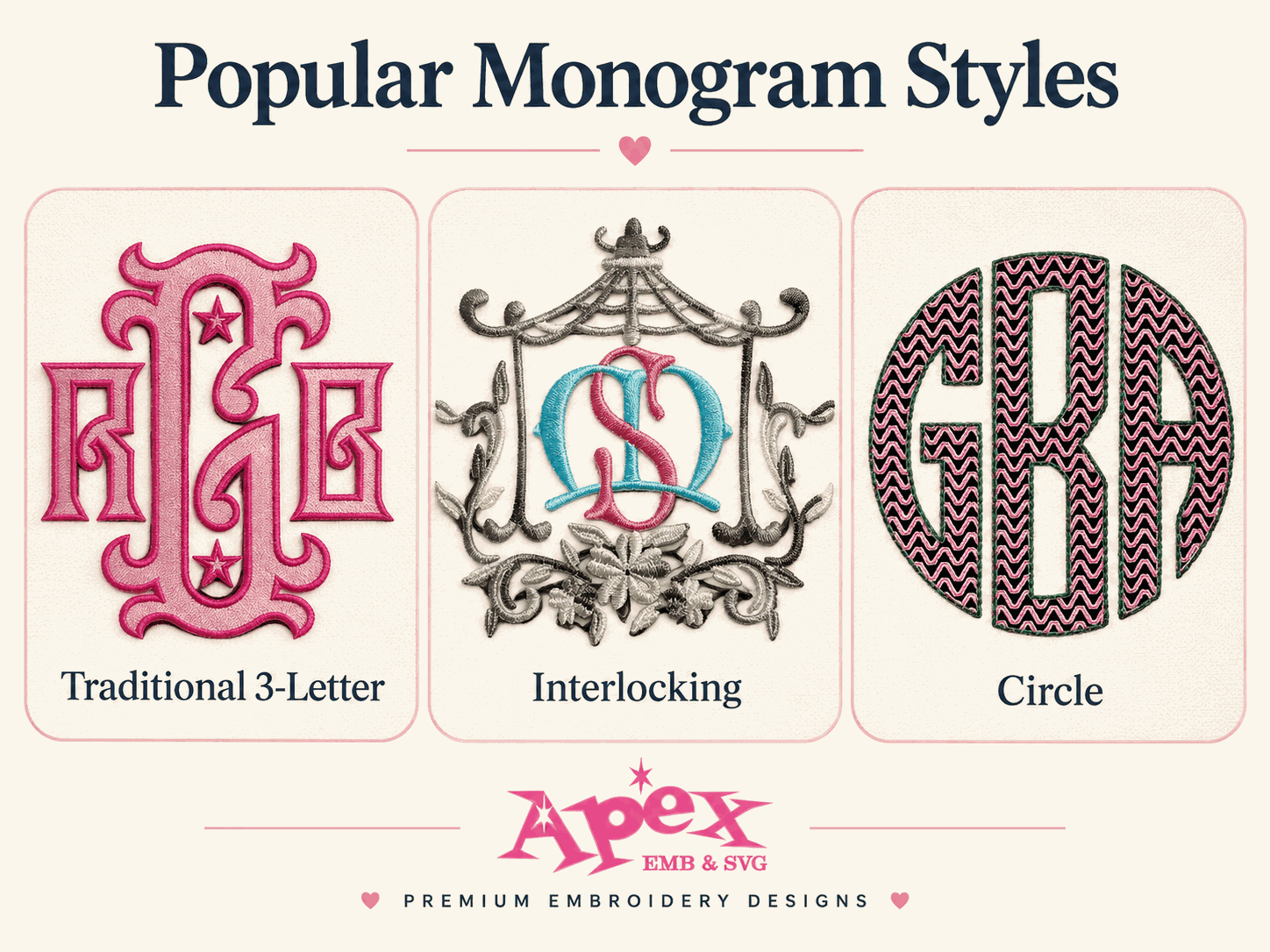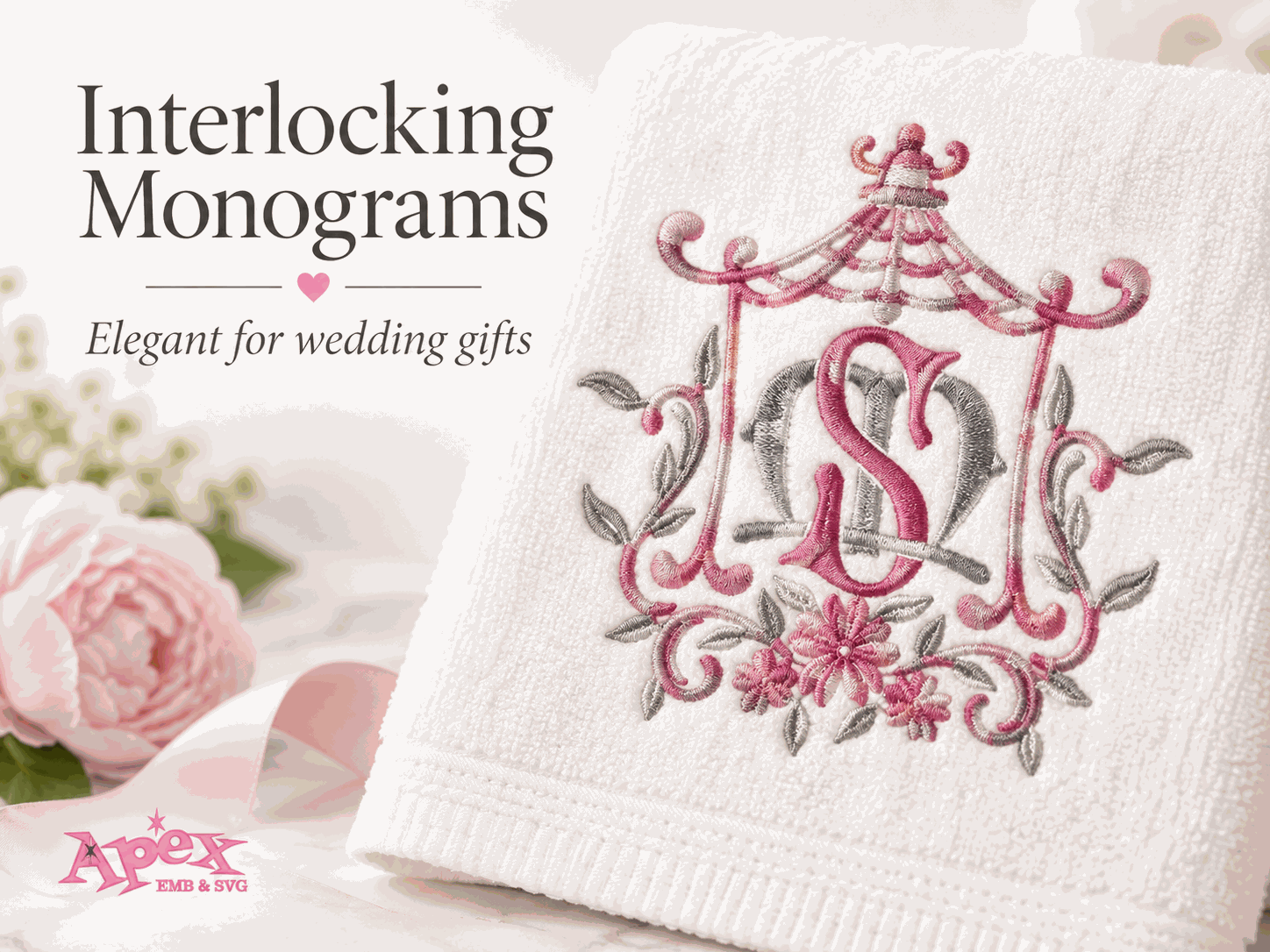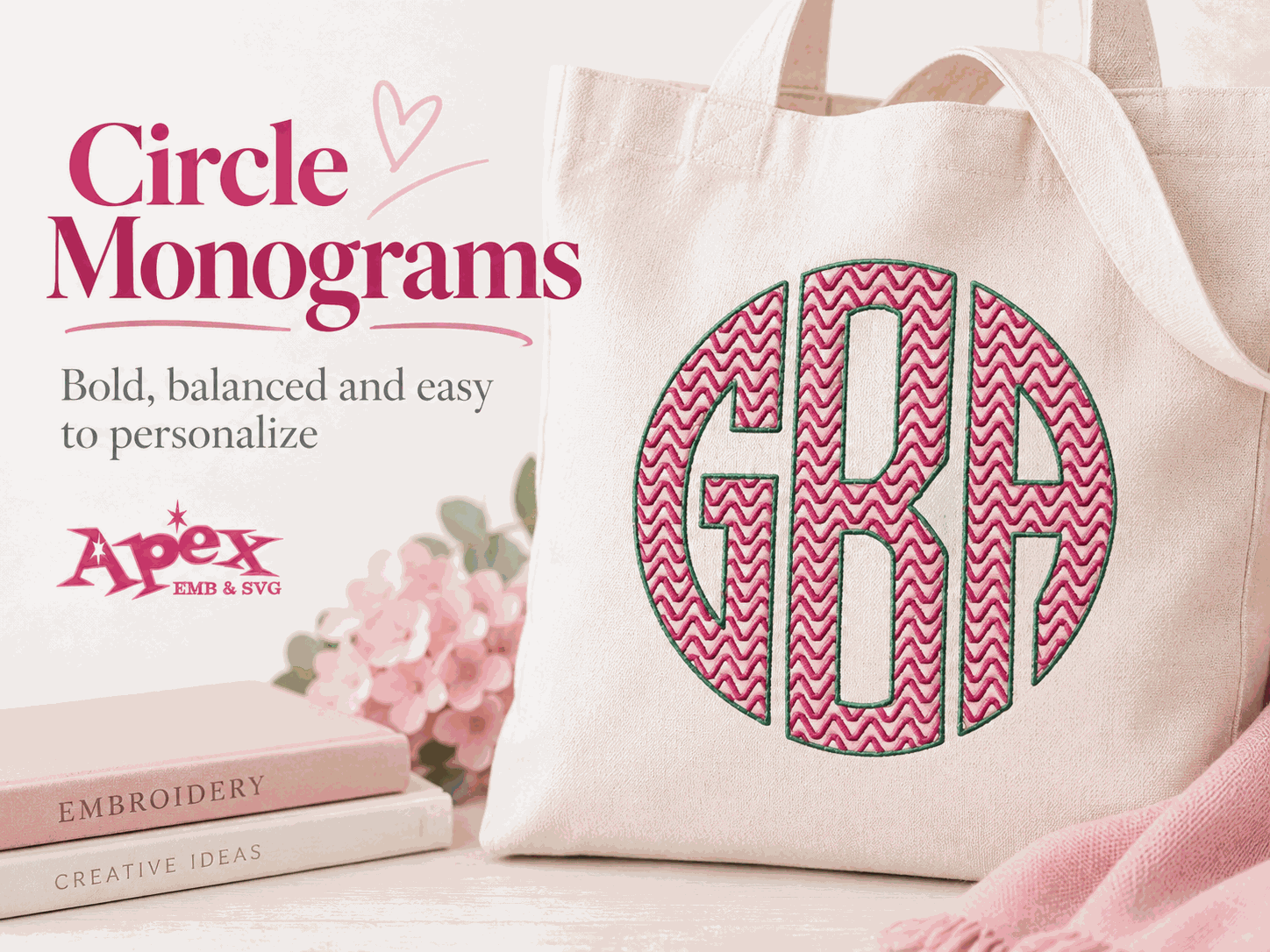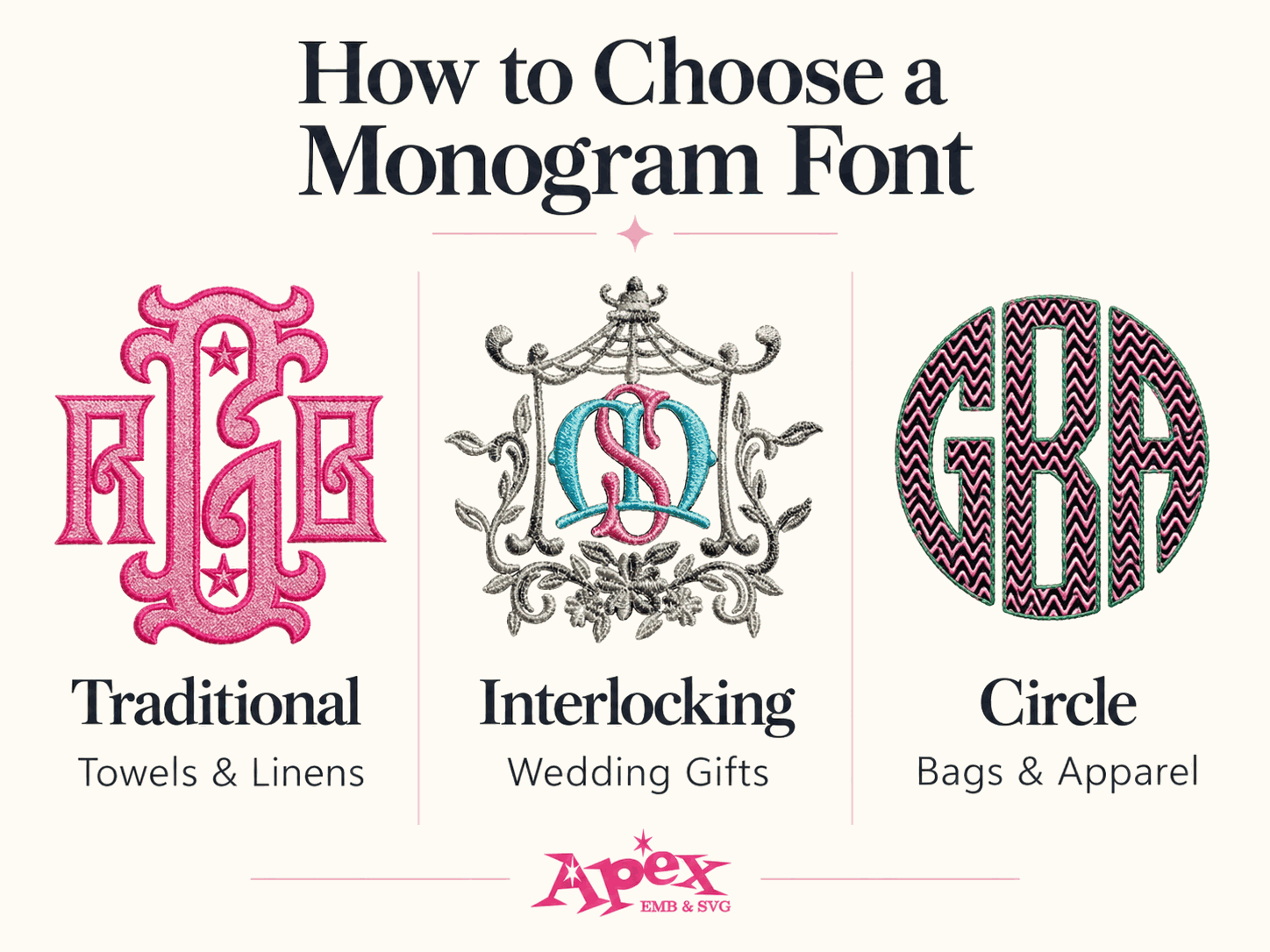
Monogram Embroidery Fonts: How to Choose the Right Style for Your Project
Monogram embroidery fonts are digitized machine embroidery alphabets designed specifically for stitching initials into personalized designs. Unlike standard embroidery lettering, many monogram fonts are created with special left, center, and right letters so two or three initials can form a balanced, decorative design.
From classic three-letter monograms and elegant interlocking initials to circle, heart, and specialty styles, monograms can transform a simple towel, robe, tote bag, sweatshirt, or wedding gift into something personal.
In this guide, we’ll explain the most popular monogram styles, how three-letter monograms work, what embroidery file formats to look for, and how to choose the right font for your project.
What Is a Monogram Embroidery Font?
A monogram embroidery font is a digitized alphabet designed for creating embroidered initials with an embroidery machine. Depending on the font, the letters may be arranged individually, interlocked, placed inside a circle, or designed as separate left, middle, and right characters for traditional three-letter monograms.
This is what makes a monogram font different from a regular embroidery font.
Regular embroidery fonts are usually designed for stitching names, words, and phrases in a straight line. Monogram embroidery fonts are created specifically around the visual relationship between initials.
| Feature | Regular Embroidery Font | Monogram Embroidery Font |
|---|---|---|
| Main purpose | Names, words and phrases | Initials and personalized designs |
| Typical layout | Linear lettering | One, two or three-letter composition |
| Popular styles | Script, serif, block | Circle, interlocking, fishtail, heart |
| Common projects | Shirts, quotes, names | Towels, gifts, robes, weddings |
| Letter structure | Usually one alphabet | May include left, center and right alphabets |
If your project is centered around initials rather than a full name, a monogram font will usually create a more balanced finished design.
How Do Three-Letter Monograms Work?
One of the most popular formats in machine embroidery is the three-letter monogram.
For an individual, the traditional arrangement often places the surname initial in the center and makes it larger than the other two initials.
For example:
Emily Rose Smith
may appear as:
E S R
where S, the surname initial, is positioned prominently in the center.
However, monogram order is not an absolute rule.
Some modern fonts use equal-sized letters, while interlocking and decorative fonts may have their own layout. Couple and wedding monograms can also use different combinations depending on the design.
The safest approach is to preview the complete monogram before stitching it onto your final project.
Popular Types of Monogram Embroidery Fonts
Not every monogram font creates the same look. Choosing the right style depends on the fabric, finished size, project type, and overall aesthetic you want.
Traditional Three-Letter Monogram Fonts
Traditional three-letter monograms are among the most versatile choices for personalized embroidery.
They usually feature:
- A smaller left initial
- A larger center initial
- A smaller right initial
This arrangement works particularly well for:
- Bath towels
- Hand towels
- Robes
- Bed linens
- Pillowcases
- Tote bags
- Personalized gifts
A good example is the Classic Curlz Monogram Machine Embroidery Font.
The font includes separate left, middle, and right letter sets, making it easier to build a properly proportioned three-letter monogram.
It is a strong choice when you want the traditional monogram appearance without using ordinary letters and manually resizing the center initial.
Circle Monogram Embroidery Fonts
Circle monograms arrange initials to create a rounded overall shape.
Because of their bold and symmetrical appearance, they are especially useful when the monogram itself is the focal point of the project.
Circle monograms work beautifully on:
- Tote bags
- Sweatshirts
- T-shirts
- Backpacks
- Blankets
- Personalized gifts
The Sketch Wave Circle Monogram Embroidery Font from Apex offers a more decorative interpretation of the traditional circle monogram.
A circle font is particularly useful when you want a design that looks complete even without additional embroidery elements around it.
Interlocking Monogram Embroidery Fonts
Interlocking monograms bring two or more initials together so the letters overlap or connect.
This creates a more elegant, decorative appearance than standard lettering and makes interlocking styles especially popular for:
Most importantly, choose a design that has been digitized for the size and stitch technique you intend to use.